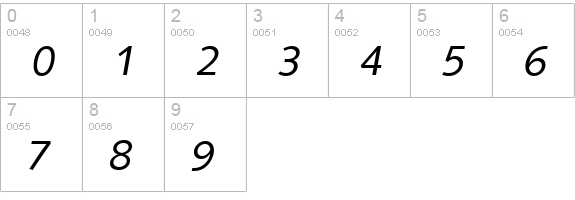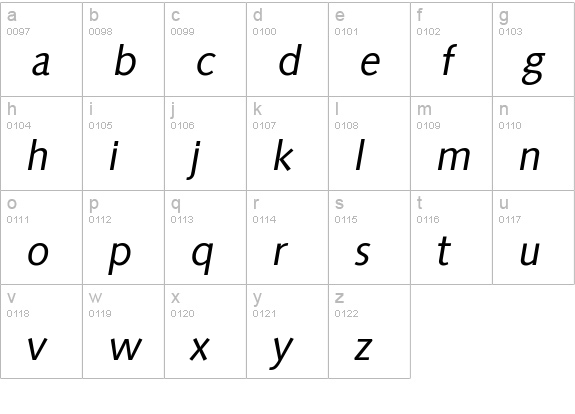
SaxonySerial-Italic is a distinctive, italic variant in the SaxonySerial typeface family \xE2\x80\x94 well suited to design and typography projects.
SaxonySerial-Italic font is a sleek and stylish typeface that exudes elegance and sophistication. With its slanted and graceful letterforms, this font is perfect for adding a touch of modernity to any design project. Whether used for headings, quotes, or body text, SaxonySerial-Italic brings a unique flair that is sure to catch the eye. What makes SaxonySerial-Italic even more appealing is that it is completely free to download at FontsMarket.com. This means that you can enhance your projects with this beautiful font without any cost. So go ahead and elevate your designs with SaxonySerial-Italic today!